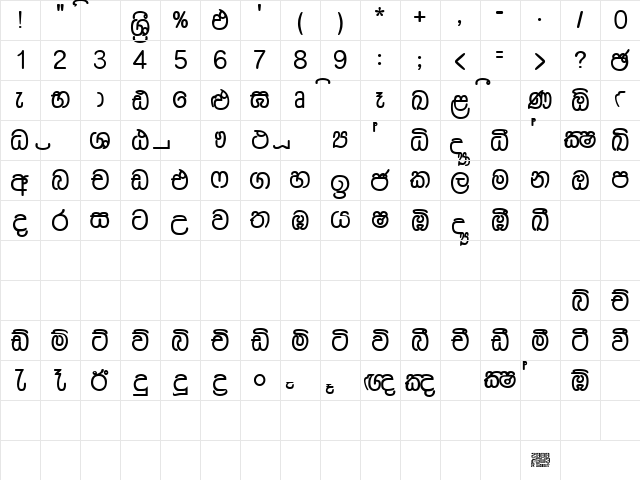
Dusharnbi Regular
| Foundry | GreyWolf WebWorks |
| Designer | Rich Gast |
Design Context for Dusharnbi Typeface
Dusharnbi takes a measured approach to typography — its balanced proportions and neutral character make it a reliable workhorse for both digital and print work.